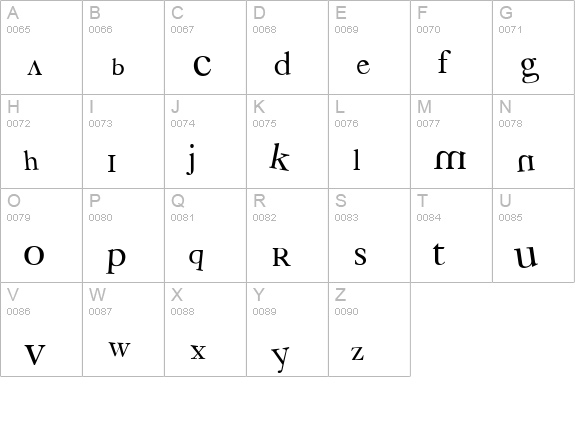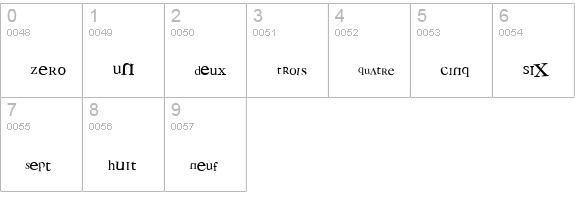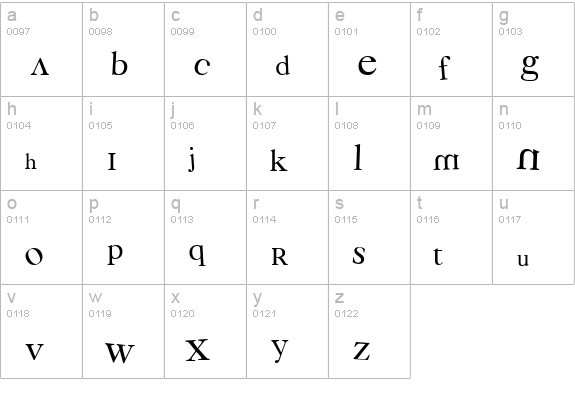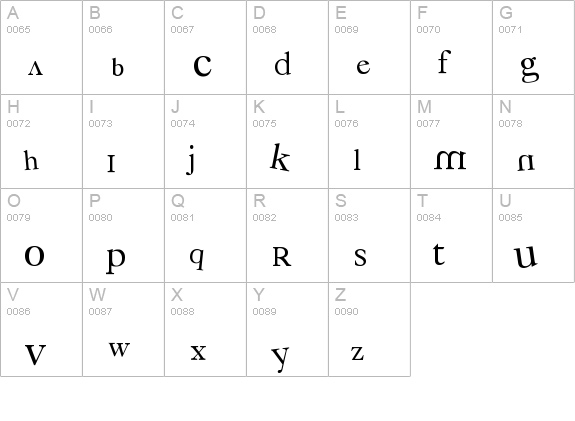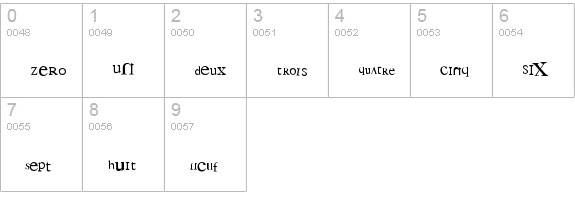
3 grammes 5 Font Details
Introducing 3 Grammes 5 Font, a sleek and modern typeface that exudes sophistication and elegance. With its clean lines and contemporary design, this font is perfect for a wide range of projects, from branding to editorial design. The versatility of 3 Grammes 5 Font makes it an essential addition to any designer's toolkit. And the best part? It's completely free to download at FontsMarket.com! That's right, you can enhance your projects with this stunning font without spending a dime. Don't miss out on the opportunity to elevate your designs with 3 Grammes 5 Font - download it today and take your creativity to the next level.